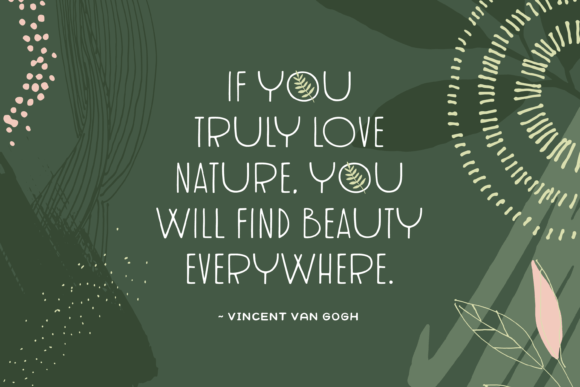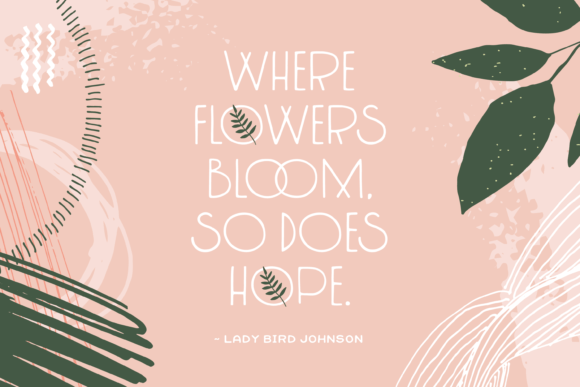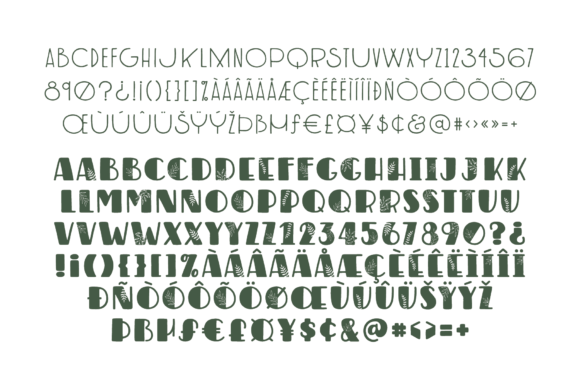
Flora & Francie is an all-caps, retro inspired duo. The thick and thin fonts provide a beautiful contrast that will make any typography stand out. The bold font includes both a plain version (uppercase) and a version decorated with leaves (lowercase) for an elegant and unique feel.